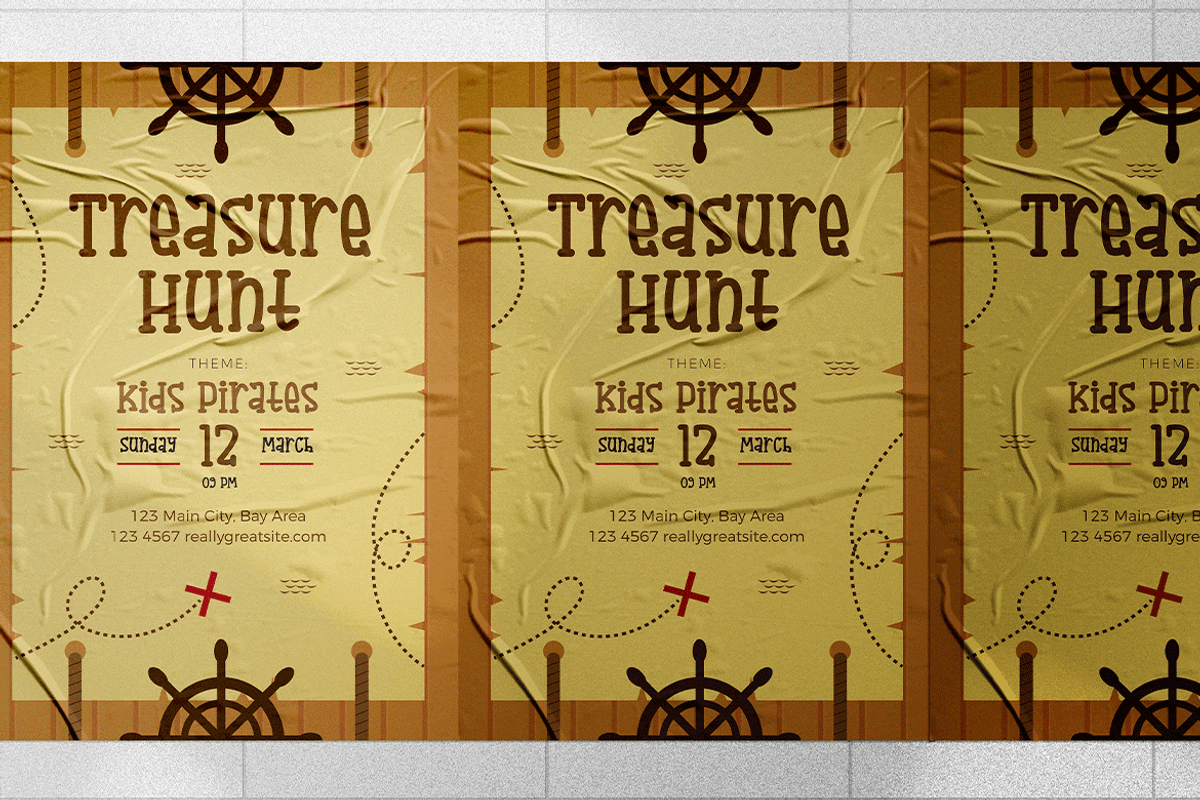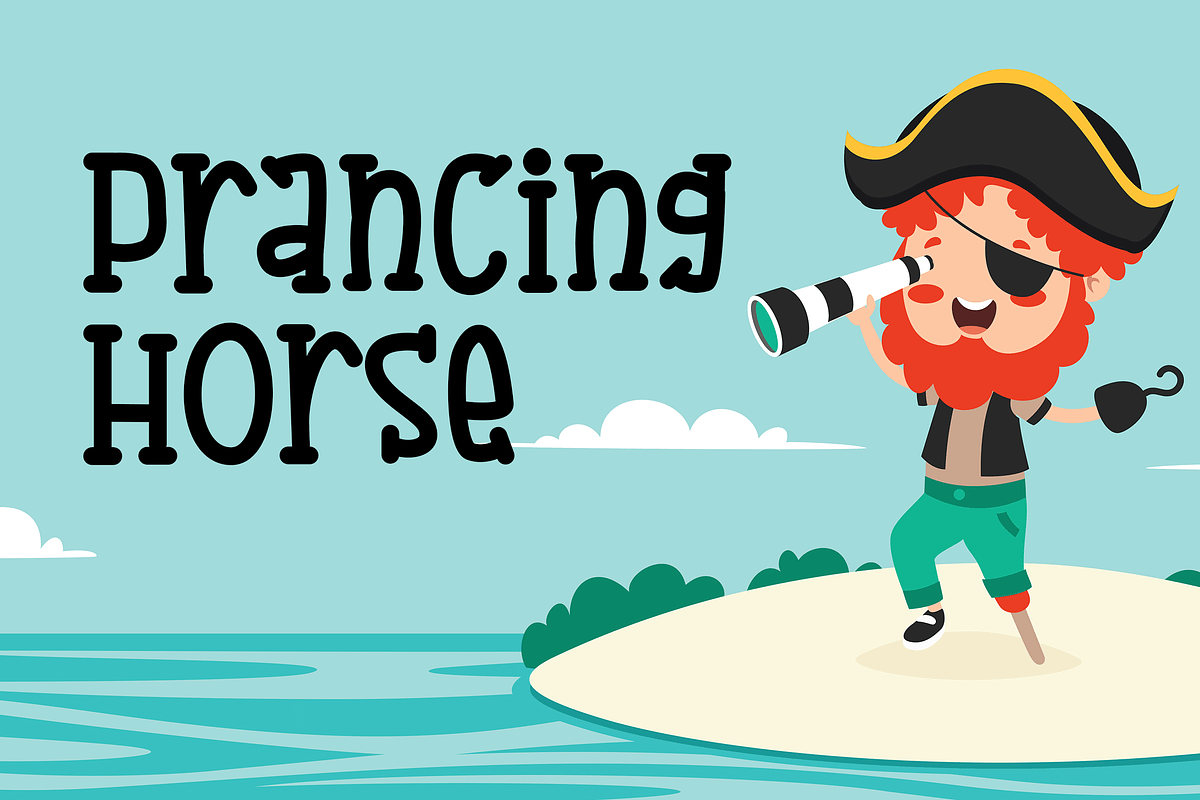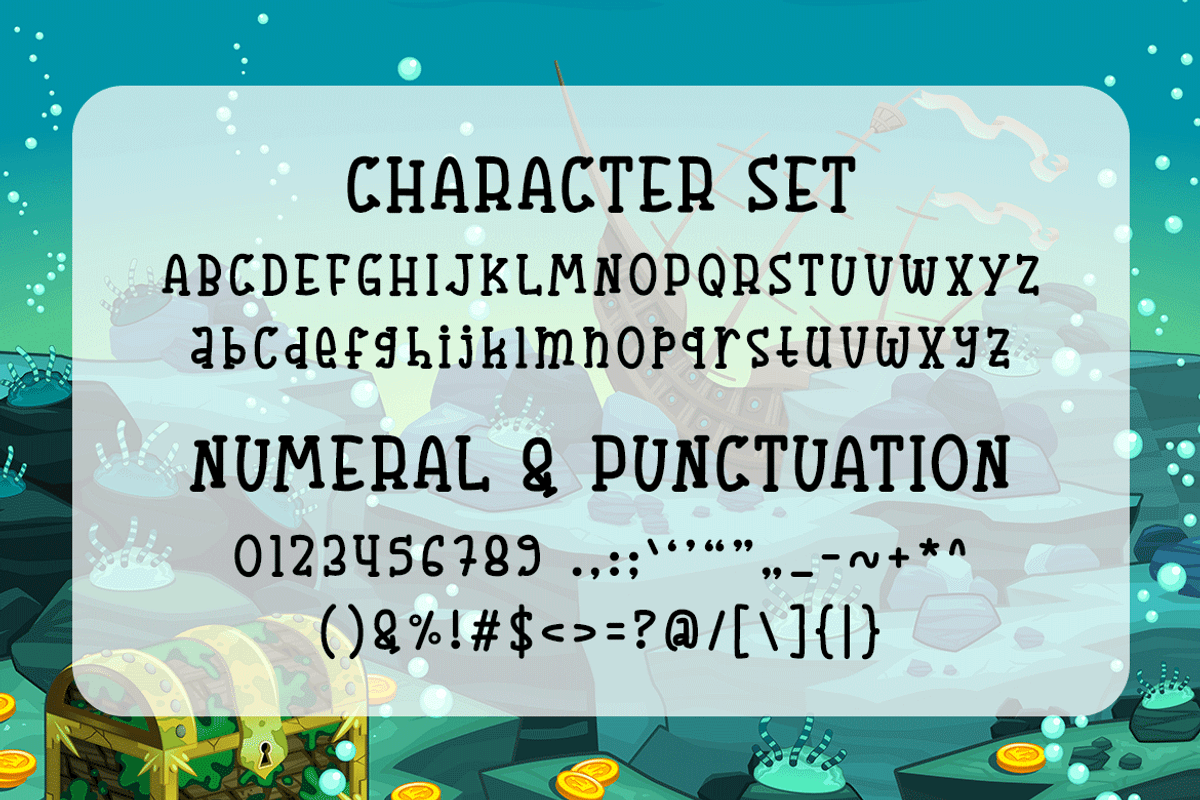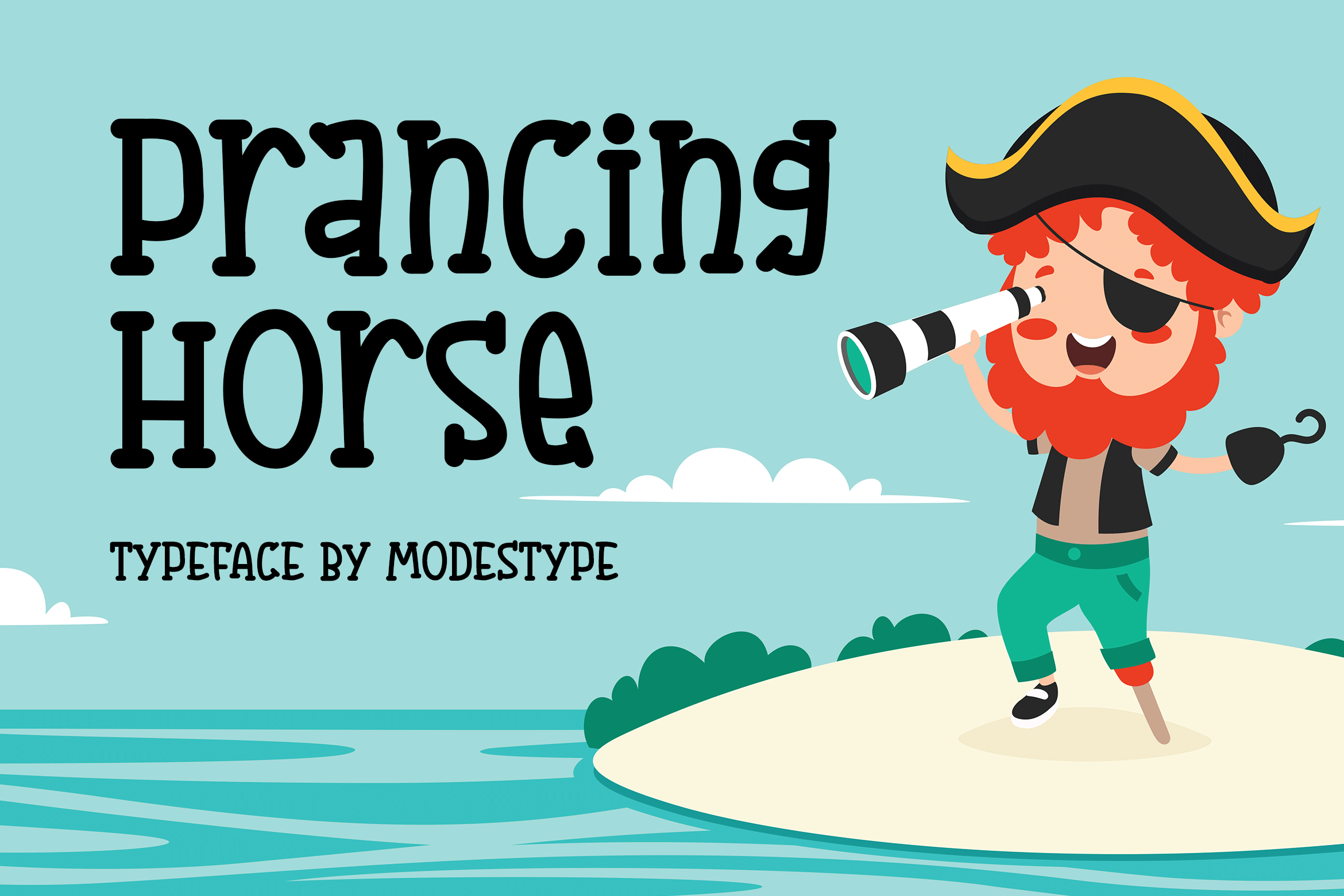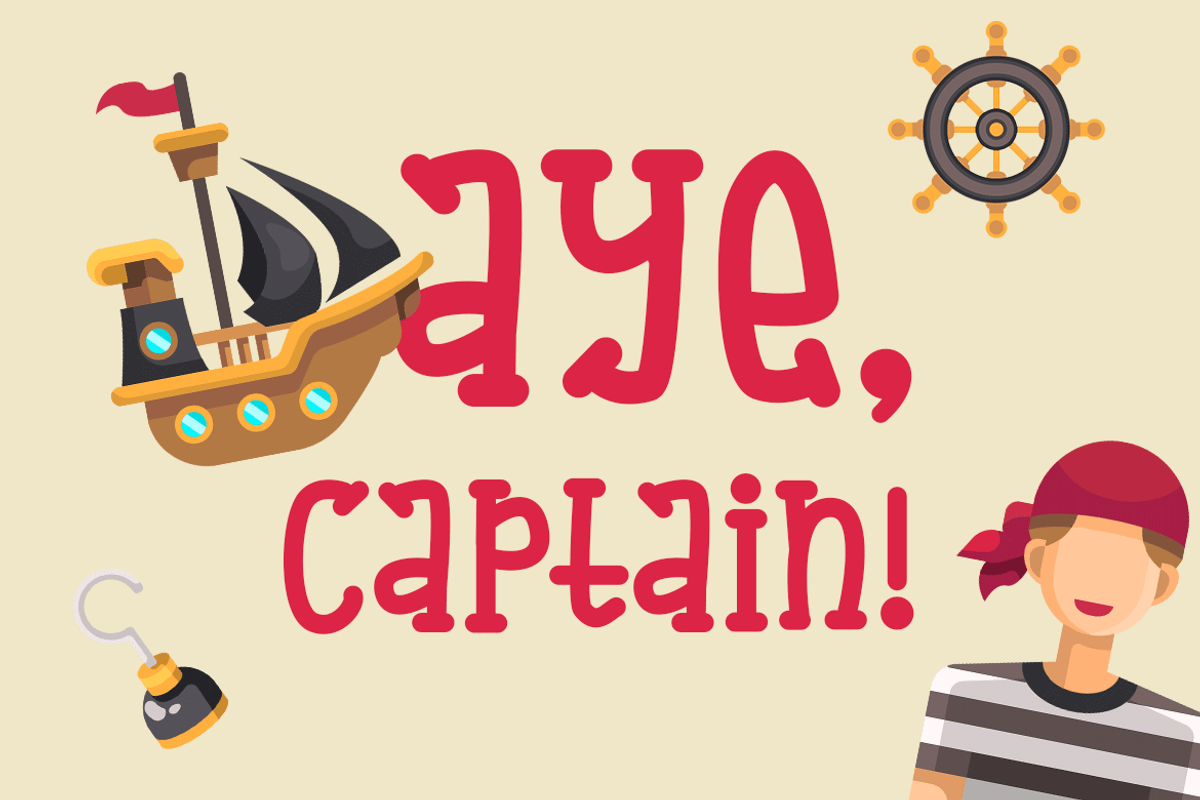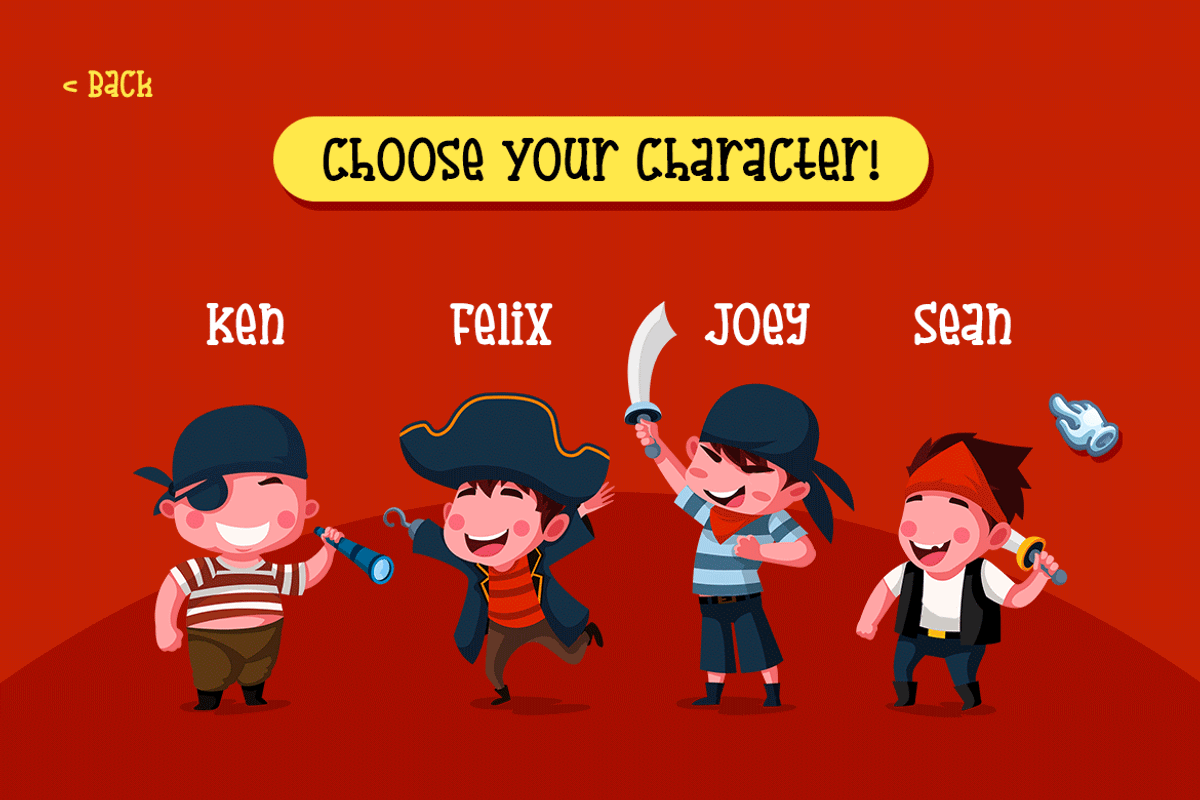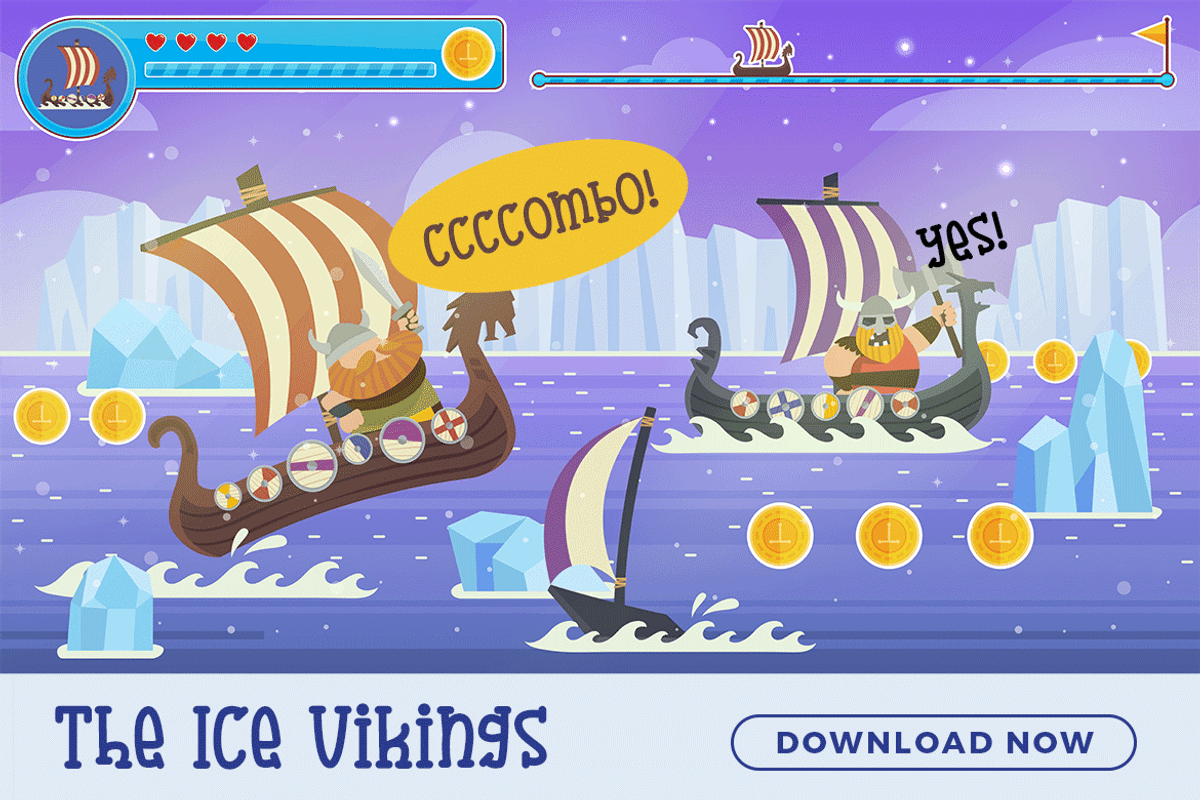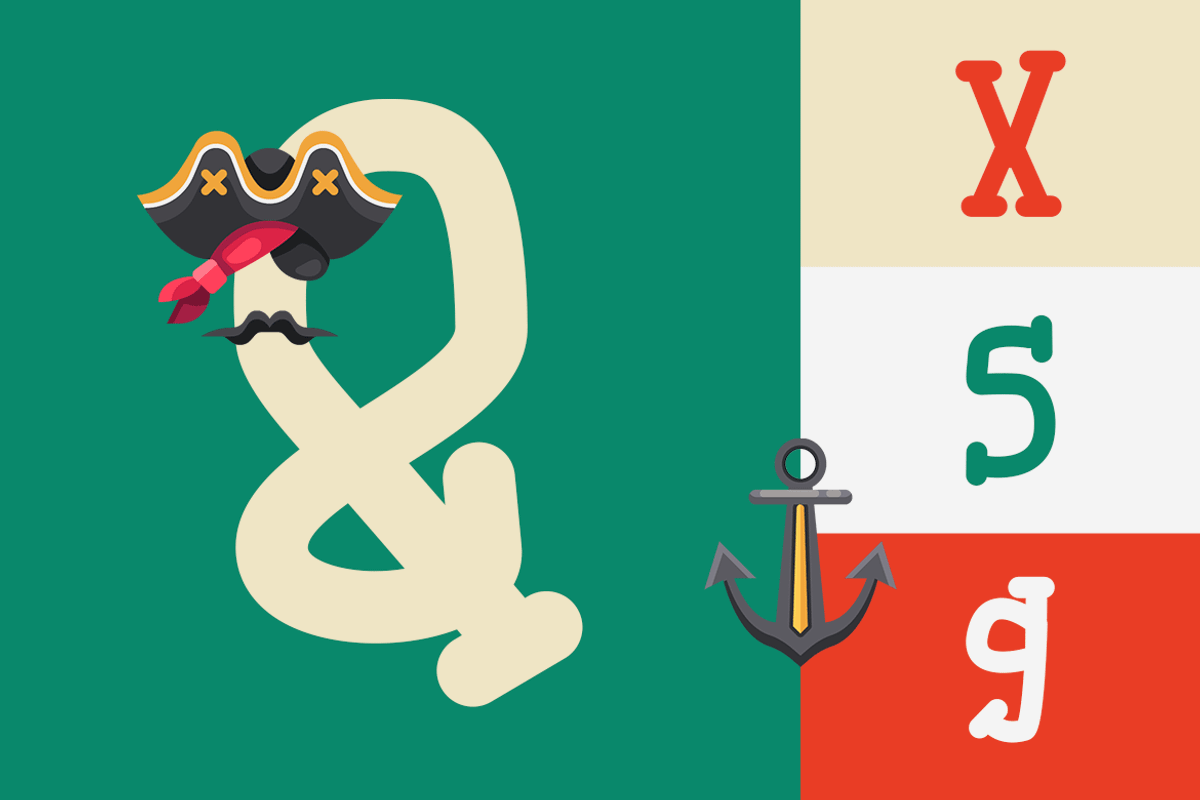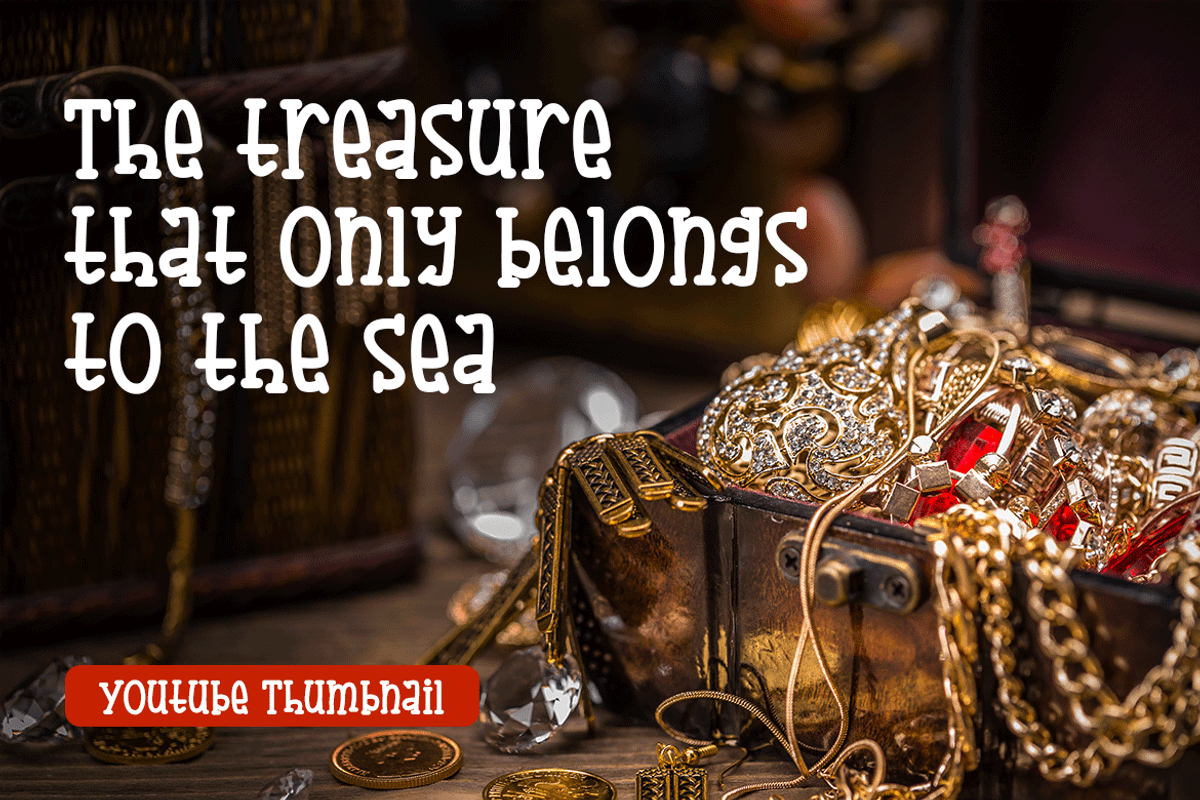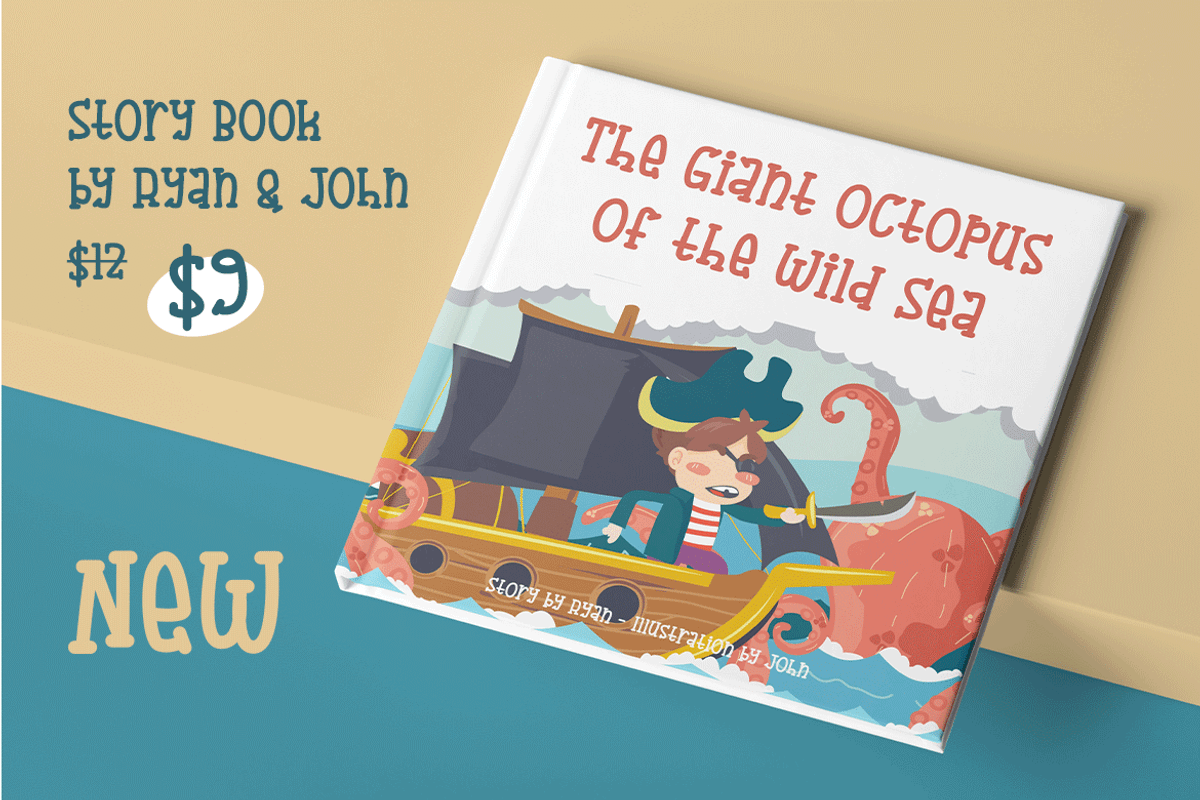
Prancing Horse - Active Kids Font
Prancing Horse – Kids Font
A cute perfectly made serif font for kids. It speaks volume about a little kids that really eager to explore the world outside.
Suit perfect for adventure children's books market, online games, teens event posters, school supplies font, posters, movie titles, youtube covers, youtube thumbnails, social media page covers, and so on...